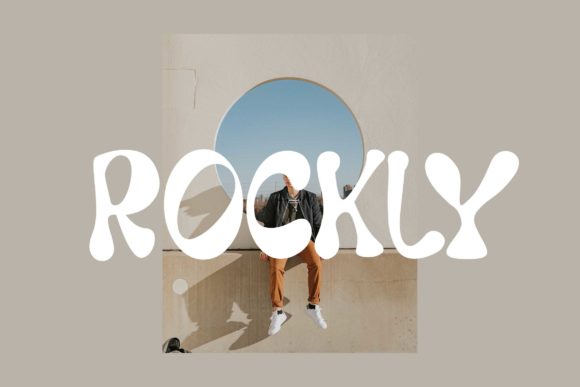
Calling all font enthusiasts! Let us introduce you to Rockly Font, a masterpiece of the digital age. Prepare to be mesmerized by its enchanting letters, meticulously crafted to captivate your designs.
Picture this: the perfect logo, effortlessly conveying the essence of your brand with its bold and confident strokes. Or perhaps, a flyer that wows your audience, emblazoned with the elegant simplicity of Rockly Font's characters. Imagine the impact of social media posts that demand attention, their messages amplified by this font's magnetic charm.
With Rockly Font at your fingertips, the possibilities are endless. Its versatility empowers you to add a touch of sophistication to formal documents or lend a playful flair to casual projects. Unleash your creativity and let its timeless aesthetic elevate your designs to new heights.
Step into the world of Rockly Font today and experience the transformative power of breathtaking typography. From the first moment you lay eyes upon its characters, you'll be captivated by their undeniable allure. Join the ranks of discerning designers who swear by Rockly Font, the ultimate choice for creating designs that resonate.